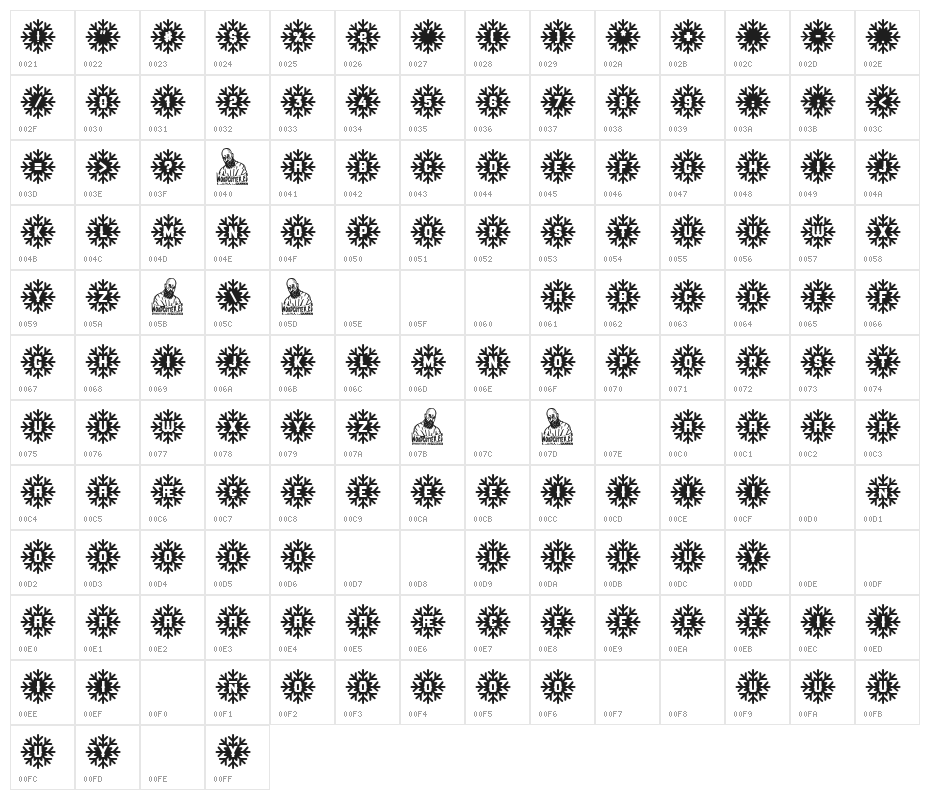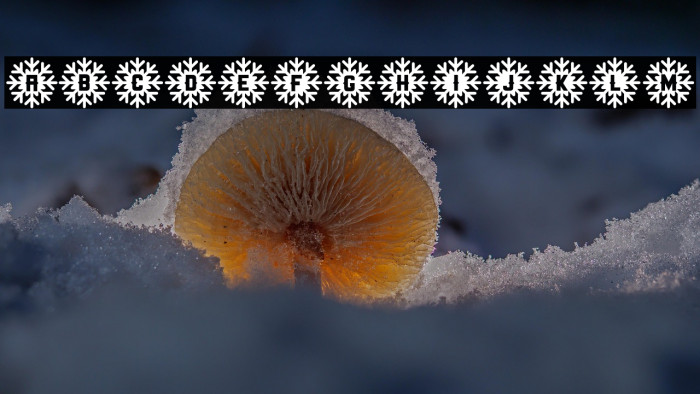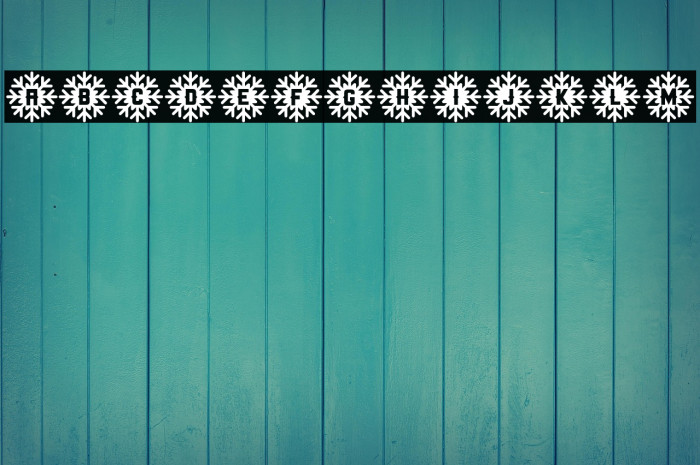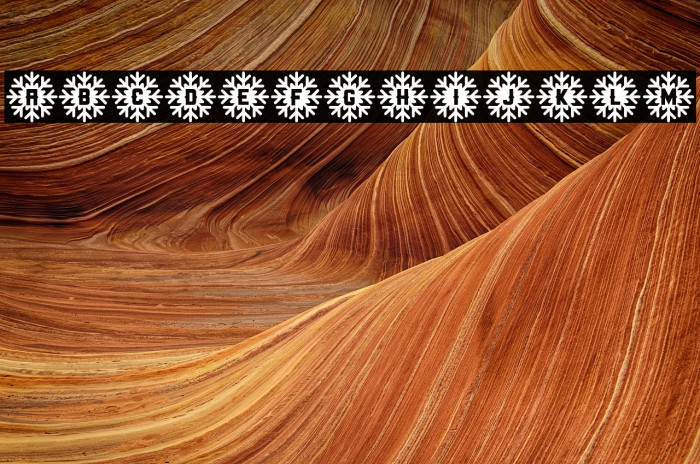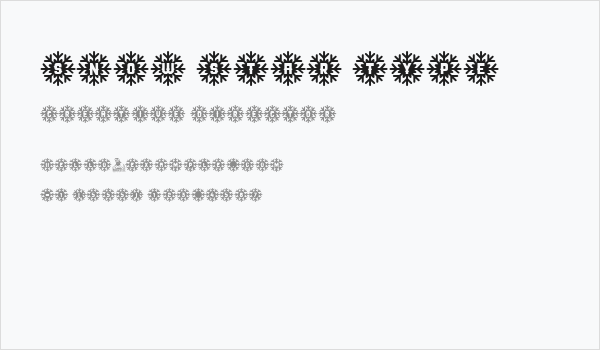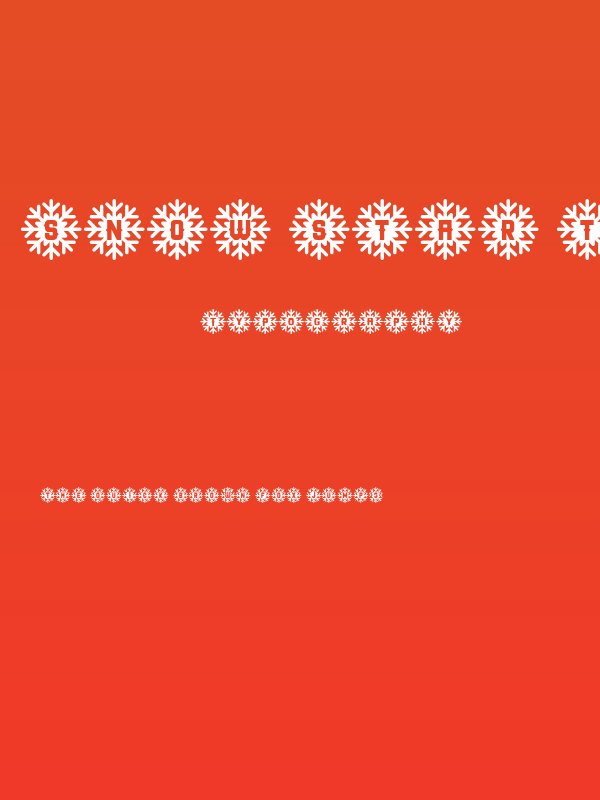
Snow Star Type Font
Snow Star Type Description
This decorative font features characters encased within intricate snowflake designs, creating a unique and festive appearance. Each letter and number is centrally positioned within a symmetrical snowflake, making it ideal for winter-themed projects. The bold, black design ensures high visibility against lighter backgrounds, while the detailed snowflake patterns add an element of elegance and complexity. The font maintains consistent sizing and spacing, ensuring uniformity across all characters. Its playful yet sophisticated style makes it suitable for a variety of creative applications.
| Use Case | Logos, Headlines, Posters |
| Proposed Projects | Ideal for holiday cards, winter event invitations, festive posters, and seasonal branding. |